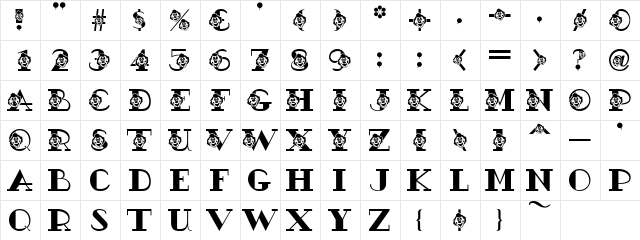
AC2-Clown 2-Clown
Design Context for AC2-Clown Typeface
AC2-Clown is a composed and adaptable typeface that performs quietly and consistently across a wide range of design contexts.